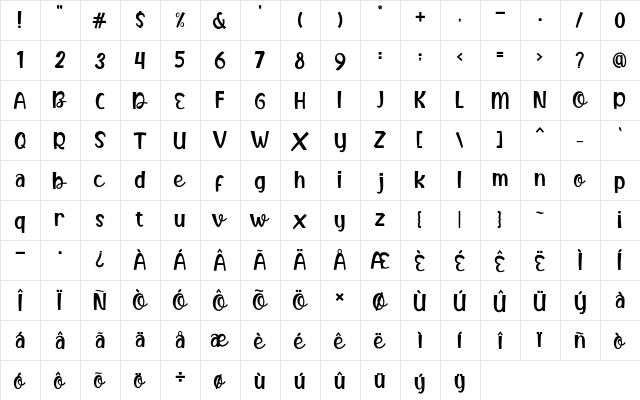
Butter Food Regular
Design Context for Butter Food Typeface
Butter Food is a composed and adaptable typeface that performs quietly and consistently across a wide range of design contexts.